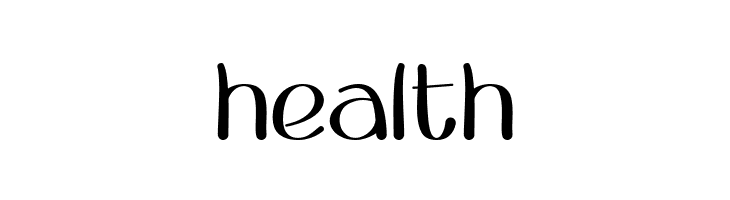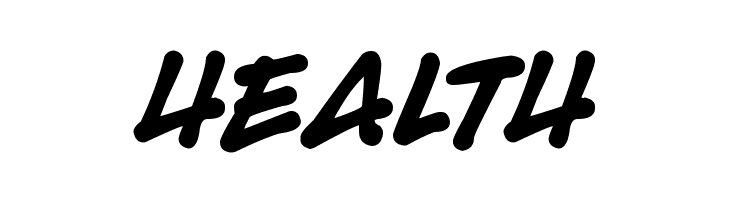
A pixelated, retro-style font with a digital, geometric design.
A bold, expressive script font with fluid, interconnected strokes.
A bold, handwritten font with fluid, connected characters and a lively style.
A bold, geometric font with sharp angles and a futuristic look.
A graceful and elegant script font with a handwritten style.
A dynamic and expressive cursive script font with elegant flow.
A dynamic, cursive font with fluid strokes and elegant slant.
A dynamic, rough script font with an italic slant and hand-drawn appearance.
A bold, fluid script font with interconnected letters and a natural handwriting feel.
A classic serif font with high contrast and elegant lines.
A playful and decorative font with ornate uppercase and simpler lowercase letters.
Elegant handwritten script font.
An elegant, flowing cursive font with thin, graceful strokes.
A bold, italicized font with dynamic angles and futuristic cut-out elements.
A bold, geometric font with a modern and futuristic design.
A bold, geometric font with a modern and industrial style.
An elegant and sophisticated cursive script font with flowing, interconnected letters.
A graceful, cursive script font with a signature-like style.
A playful, hand-drawn font with a bold and whimsical style.
A bold, 3D font with a playful and modern style, featuring rounded characters and a shadow effect.
A bold, playful font with a hand-drawn, vintage feel.
A geometric, digital-style font with angular, block-like characters.
A bold, cursive font with a dynamic and expressive style.
A bold, brush-style font with a lively and artistic flair.
A flowing, elegant script font with connected, cursive characters.
A playful, handwritten font with rounded, smooth letterforms.
A bold, serif font with a vintage yet modern appeal, featuring strong strokes and sharp serifs.
A playful and elegant handwritten script font with decorative loops and smooth curves.
A playful and flowing script font with smooth curves and consistent strokes.
A bold, playful handwritten font with thick, rounded strokes and a lively appearance.
A lively handwritten font with smooth, slanted strokes and a casual elegance.
A bold, hand-drawn style font with energetic and playful characteristics.
A modern, elegant handwritten font with fluid strokes and a dynamic slant.